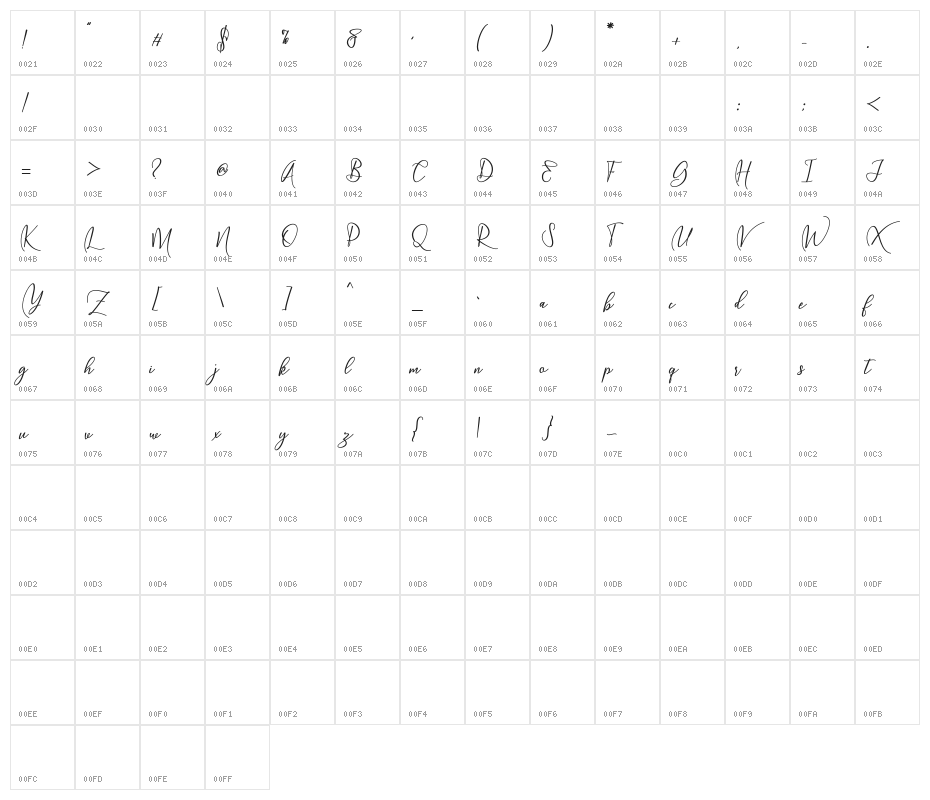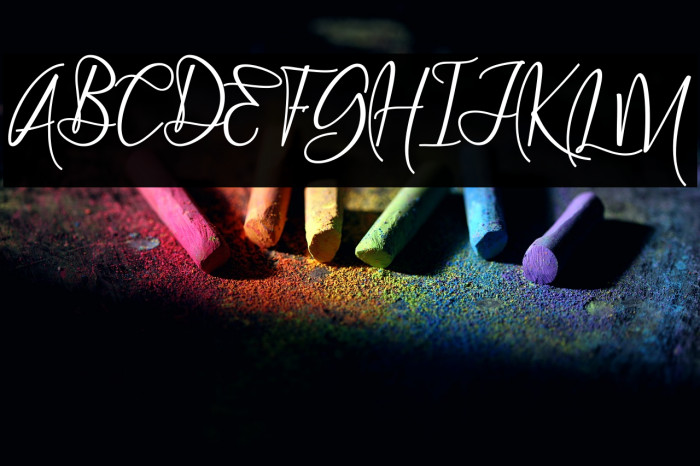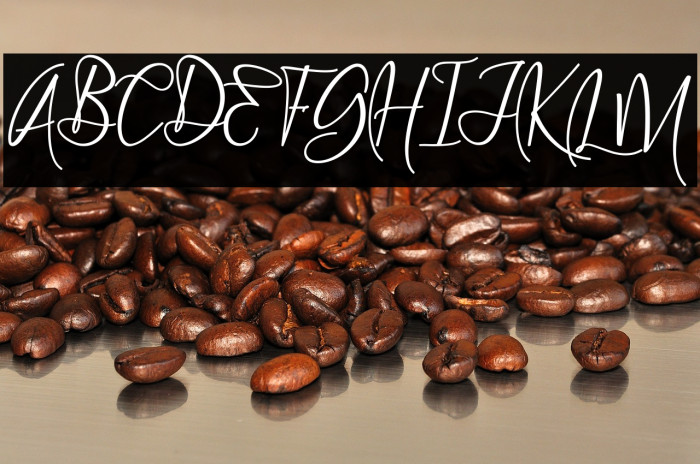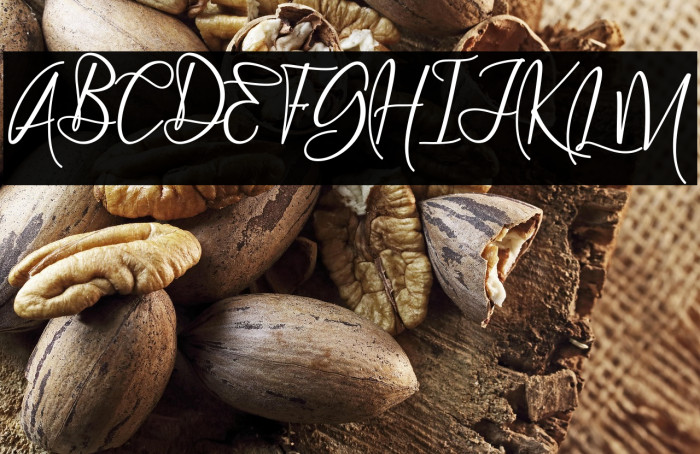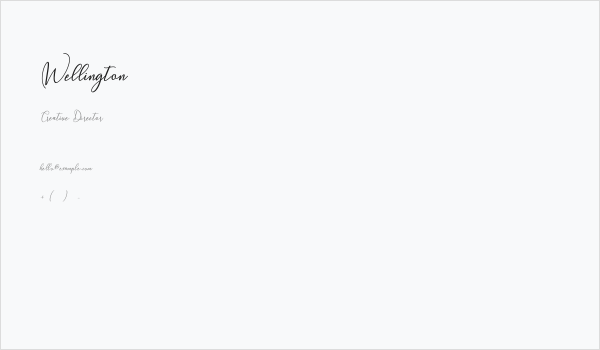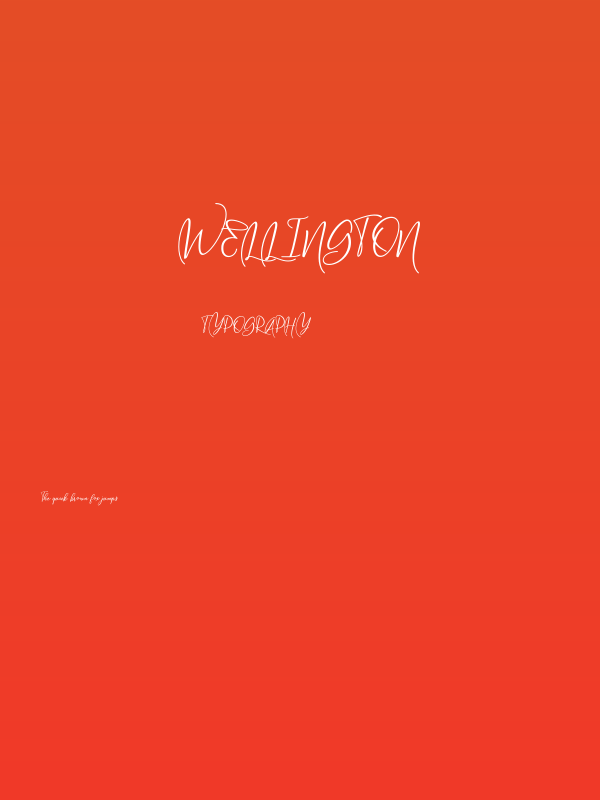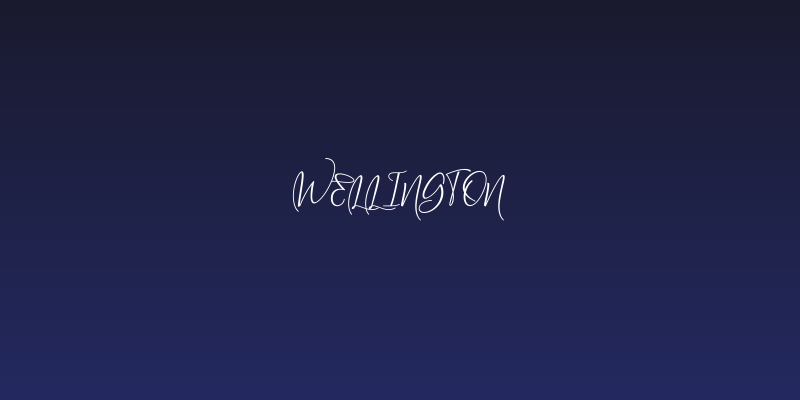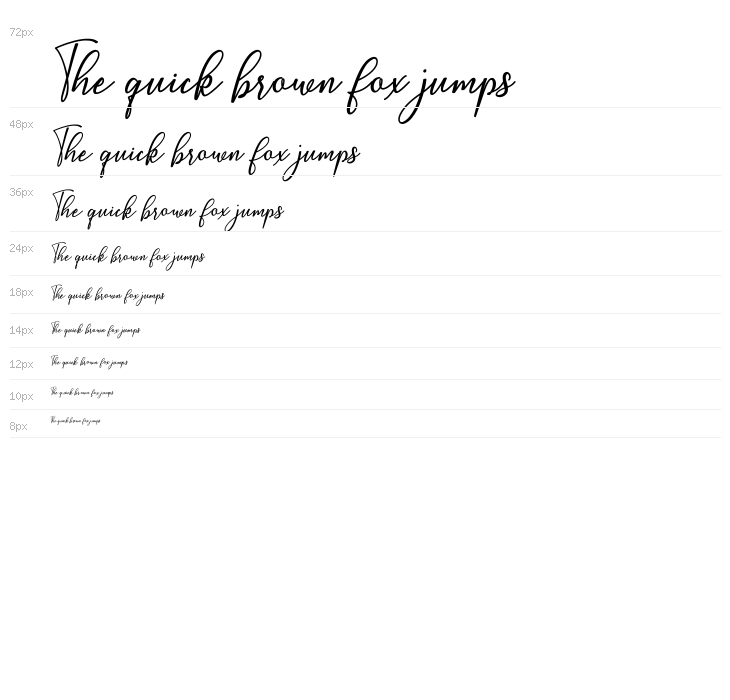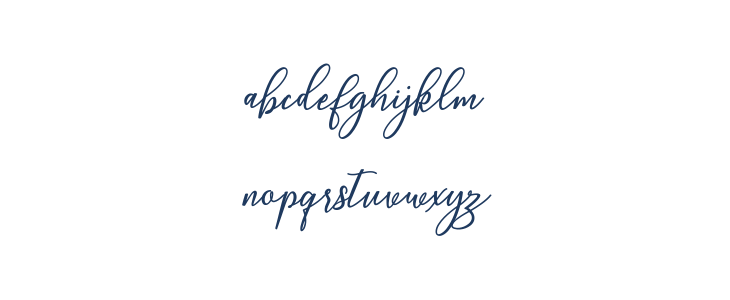
Wellington Font
Wellington Description
This font exudes elegance and sophistication with its flowing, cursive style. The uppercase letters are characterized by their intricate loops and swirls, creating a sense of movement and grace. The lowercase letters maintain a consistent fluidity, with gentle curves and a slightly slanted orientation. The numbers and special characters complement the overall aesthetic, featuring similar decorative elements. This font is ideal for projects that require a touch of class and refinement, such as wedding invitations, luxury branding, or high-end product packaging.
| Overall Style | Elegant, Decorative |
| Proposed Projects | Wedding invitations, luxury branding, high-end product packaging. |